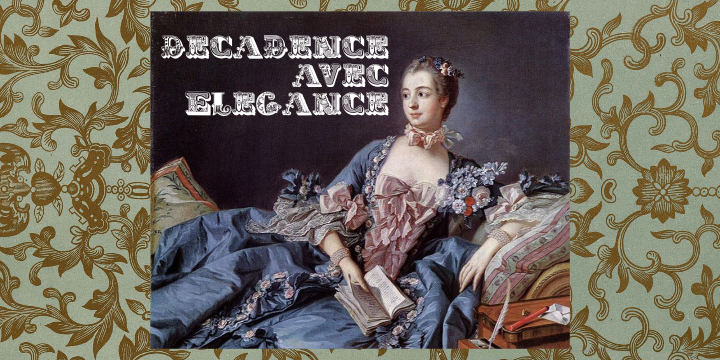
Decadence Avec Elegance Font is perfect for luxury hotel branding, haute couture fashion labels, exclusive jewelry packaging, premium champagne labels, upscale wedding invitations, elite spa treatments, high-end art gallery exhibitions, aristocratic event programs, opulent perfume advertising, and sophisticated lifestyle magazines.
What makes Decadence Avec Elegance Font so exciting is its exquisite fusion of French aristocratic refinement with contemporary luxury aesthetics through lavishly detailed letterforms that epitomize the pinnacle of sophisticated design. The font's philosophy embraces the art of living beautifully, featuring ornate flourishes, graceful curves, and opulent embellishments that capture the essence of Parisian elegance and timeless luxury. Each character appears to be crafted by master artisans, creating a visual language that instantly communicates exclusivity, cultural sophistication, and the finest traditions of European luxury craftsmanship. This remarkable typeface transforms ordinary text into extraordinary expressions of refined taste and aristocratic heritage that resonate with audiences who appreciate the finest things in life.
The Decadence Avec Elegance Font family includes luxurious variations: Regular, Bold, Light, Medium, Condensed, Extended, Italic, Ornate, and Flourished styles. Each variation maintains the font's characteristic French elegance while offering different levels of decorative sophistication and ornamental detail for various haute couture design applications.
When searching for a typeface that embodies the essence of French luxury and aristocratic sophistication, Decadence Avec Elegance Font Free Download represents the absolute zenith of refined typography design that elevates any project to unprecedented levels of cultural elegance and luxury positioning.
The meticulously crafted letterforms of Decadence Avec Elegance Font demonstrate superior attention to haute couture design principles, featuring intricate detailing, perfect proportions, and exquisite spacing that ensures optimal elegance across all luxury applications. Its versatile design adapts beautifully from intimate perfume bottles to grand château signage.
Professional designers working on luxury fashion, high-end hospitality, and premium lifestyle brands particularly value the font's ability to convey French sophistication, cultural refinement, and aristocratic appeal. The typeface works exceptionally well for projects targeting affluent international clientele, luxury connoisseurs, and anyone seeking to project the highest levels of cultural sophistication.
The extensive OpenType features of Decadence Avec Elegance Font include ornamental alternates, decorative ligatures, and specialized flourishes that enable designers to create magnificent luxury typography while maintaining the font's distinctive French elegance throughout all design elements and haute couture applications.